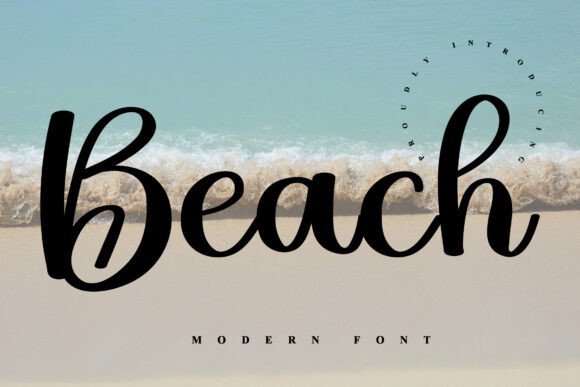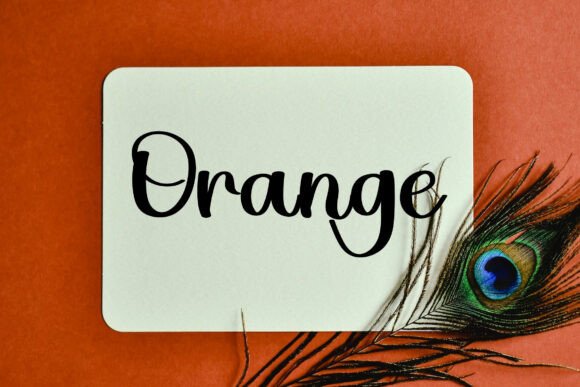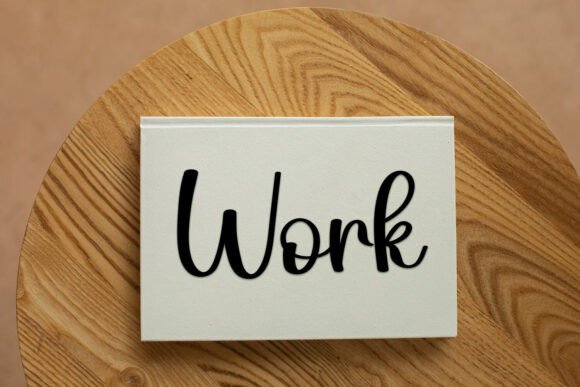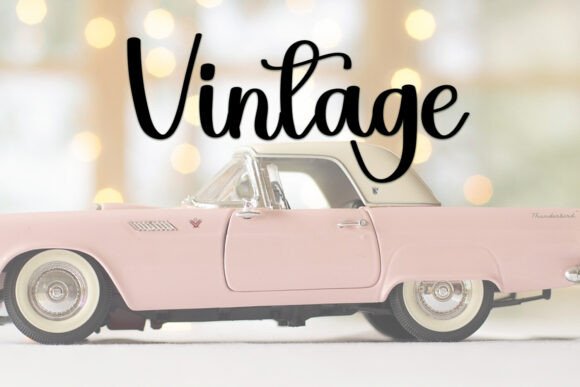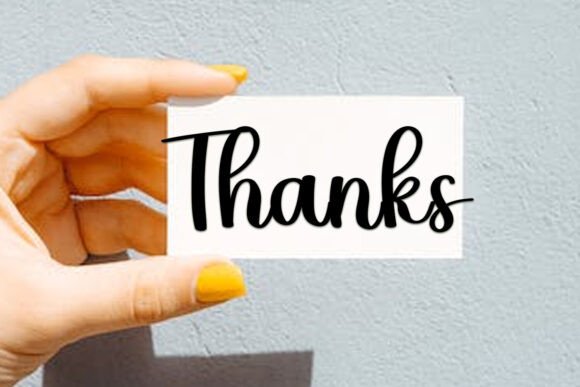
Unleash Your Creativity with Beach Font
Do you ever find yourself stuck in a creative rut, desperately seeking the perfect font to bring your design to life? We’ve all been there – pouring over font libraries, searching for that one elusive style that captures the essence of our vision. But what if I told you that your search is over? Introducing Beach Font, a stunning and contemporary typeface designed to breathe new life into your diverse design needs.
Whether you’re crafting a stunning logo, designing a wedding invitation, or creating an eye-catching flyer, Beach Font has got you covered. Its simplicity and uniqueness make it an excellent choice for designers looking to elevate their work and stand out from the crowd. With Beach Font, you can trust that your ideas will shine through in a way that’s both sophisticated and memorable.
Beach Font Key Features
- Font Family: A unique, handwritten font designed to evoke the feeling of a beach vacation.
- Unique Characteristics: Features a playful, cursive script with a relaxed, beachy feel, perfect for creating a laid-back atmosphere in designs.
Designer Review: Beach Font
Beach Font is a unique and visually appealing font that can add a touch of tropical flair to your designs. Here’s what I like about it:
- ✨ Unique and playful characters that evoke the feeling of a beach vacation
- ✨ Excellent for creating a fun and laid-back atmosphere in your designs
- ✨ Works well in headings and titles to add a pop of personality
- ⚠️ Limited character set, which may not be suitable for lengthy texts
- ⚠️ Some characters may not display correctly in certain fonts or sizes
- ⚠️ May not be the best choice for formal or professional designs
Overall, I think Beach Font is a great addition to any designer’s toolkit. While it may not be suitable for every project, it’s perfect for creating fun and playful designs that need a bit of personality. With its unique characters and laid-back vibe, Beach Font is sure to bring a smile to your audience’s faces.
Beach Font is perfect for creating beach-themed designs, such as:
1. Beach party invitations
2. Summer promotional materials
3. Coastal-themed graphics
Alternatives to Beach Font
Playfair Display is a high-end serif font ideal for luxury branding, invitations, and high-end product packaging. It features elegant, intricate details and a classic feel. Use it for projects that require sophistication and refinement.
Compared to Beach Font, Playfair Display has a more formal and luxurious feel, whereas Beach Font is more casual and laid-back. While Beach Font is great for summer-themed projects, Playfair Display is better suited for high-end, elegant designs.
Aleo
Aleo is a modern sans-serif font with a friendly, approachable feel. It’s perfect for digital projects, such as apps, websites, and social media graphics. Use it for projects that require a clean, minimalist aesthetic.
Compared to Beach Font, Aleo is more modern and versatile, while Beach Font is more nostalgic and playful. While Beach Font is great for summer-themed projects, Aleo is better suited for a wide range of digital projects.
Lato is a sans-serif font with a clean, modern feel. It’s perfect for digital projects, such as websites, apps, and magazines. Use it for projects that require a clear, readable font.
Compared to Beach Font, Lato is more modern and clean, while Beach Font is more playful and nostalgic. While Beach Font is great for summer-themed projects, Lato is better suited for a wide range of digital projects.